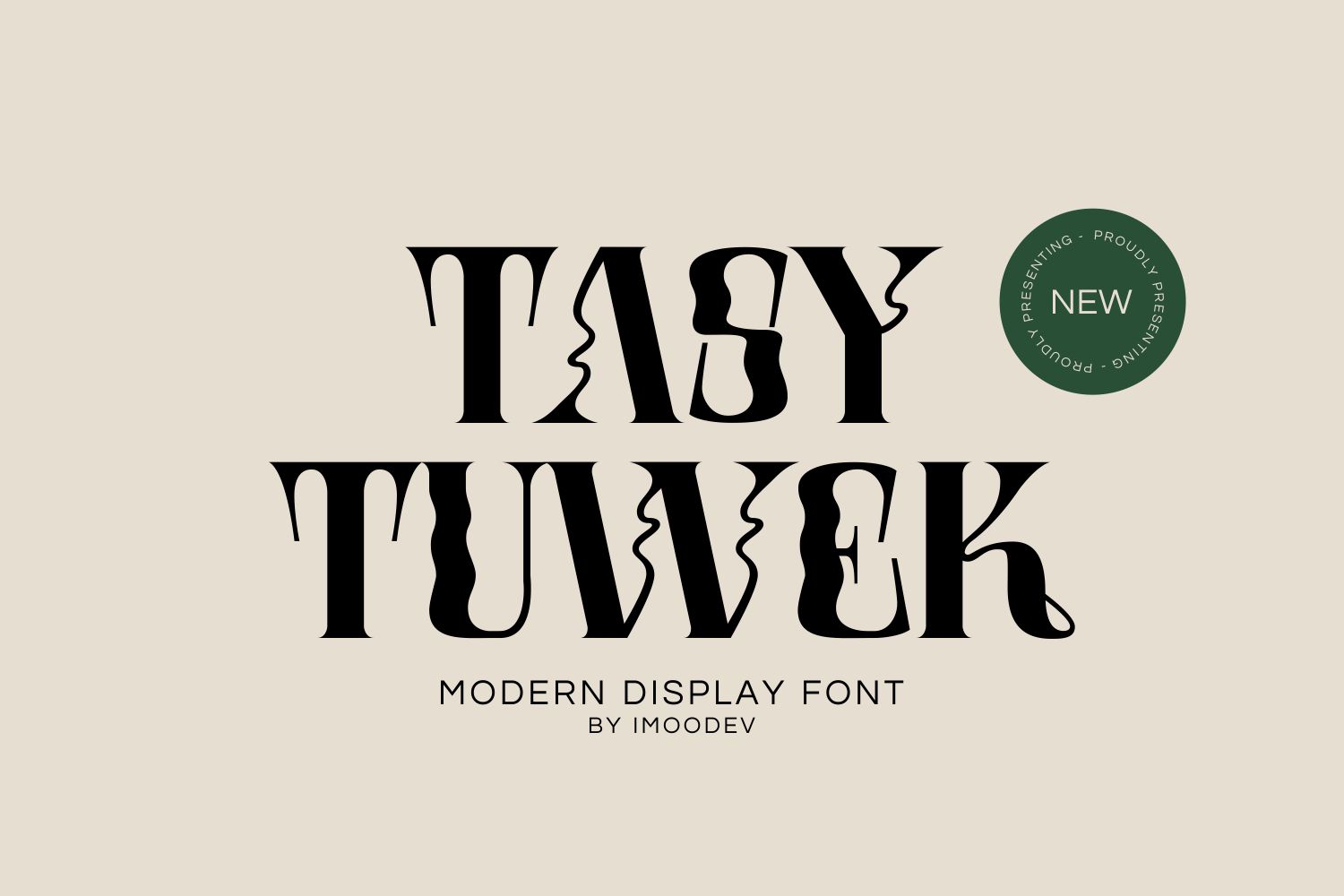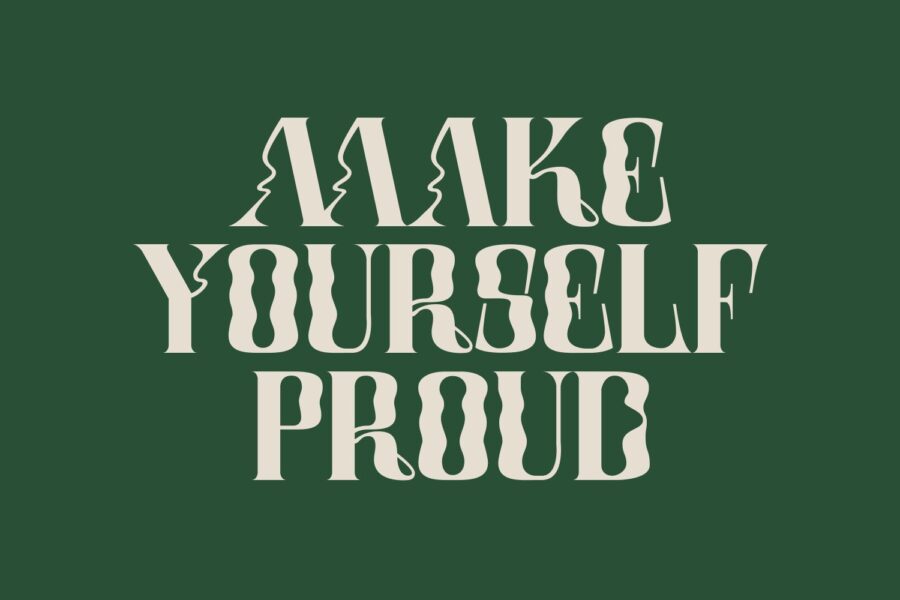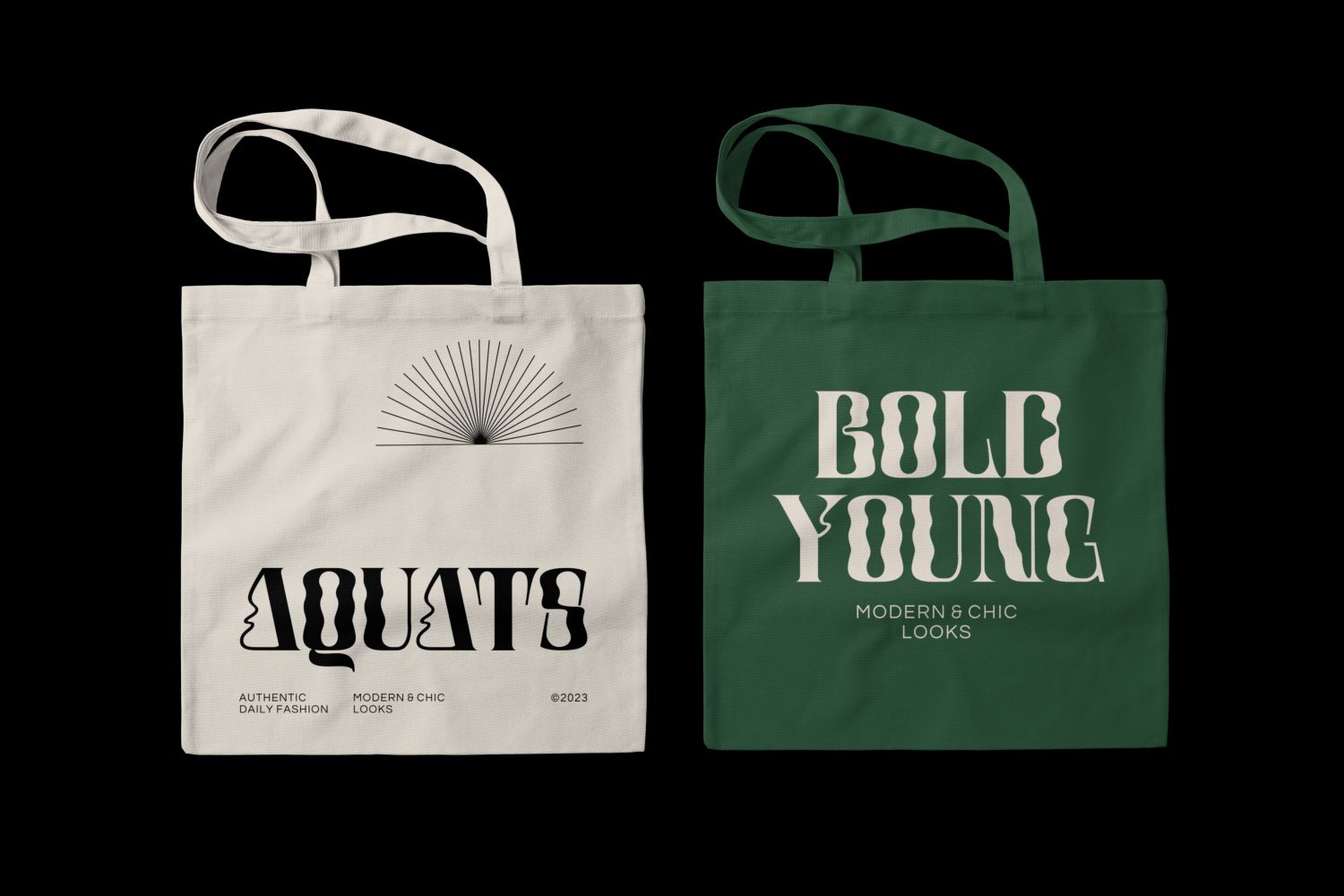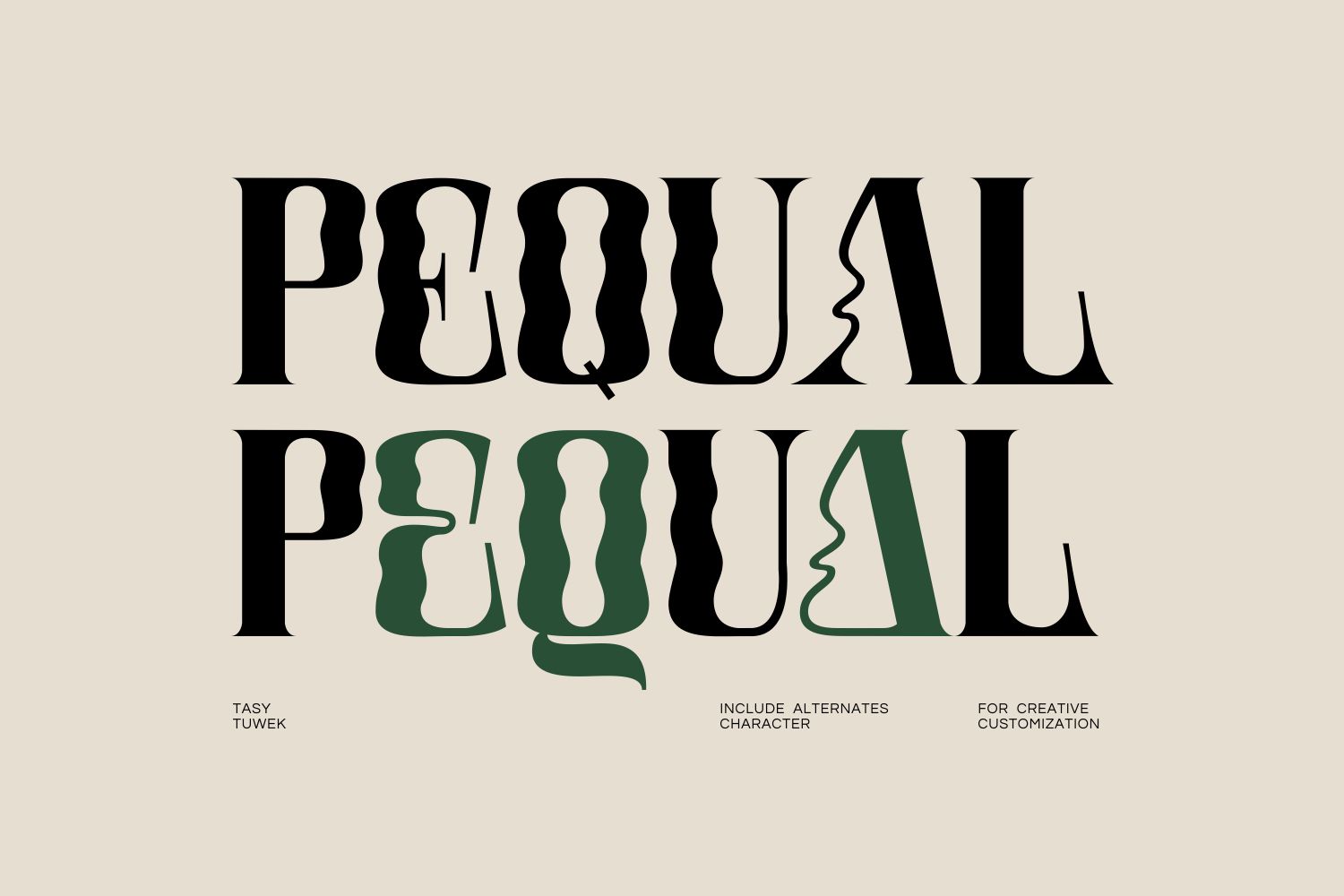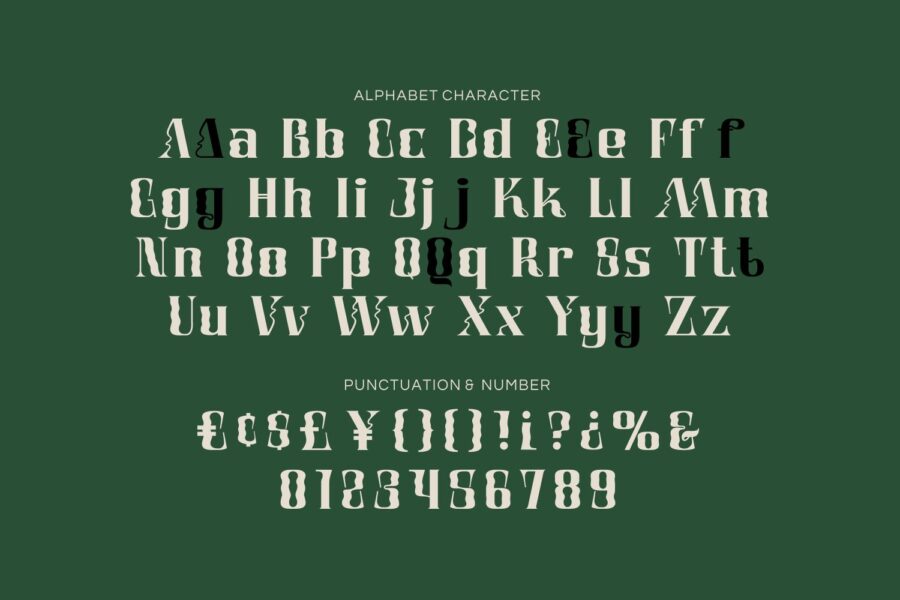
Tasy Tuwek
Tasy Tuwek is a Modern Display Font that combines bold aesthetics with artistic creativity. Each letterform carries distinctive wavy cuts and unique silhouettes, making it stand out in fashion branding, editorial layouts, posters, and lifestyle packaging. Its stylish alternates allow designers to add personality and modern flair to their work, blending a sense of elegance with experimental design.
This font is perfect for projects that demand attention and individuality. From tote bag branding, magazine covers, event posters, to high-end product packaging, Tasy Tuwek delivers sophistication with a bold twist. Its versatility ensures that every composition feels both contemporary and artistic, creating a memorable visual impact.